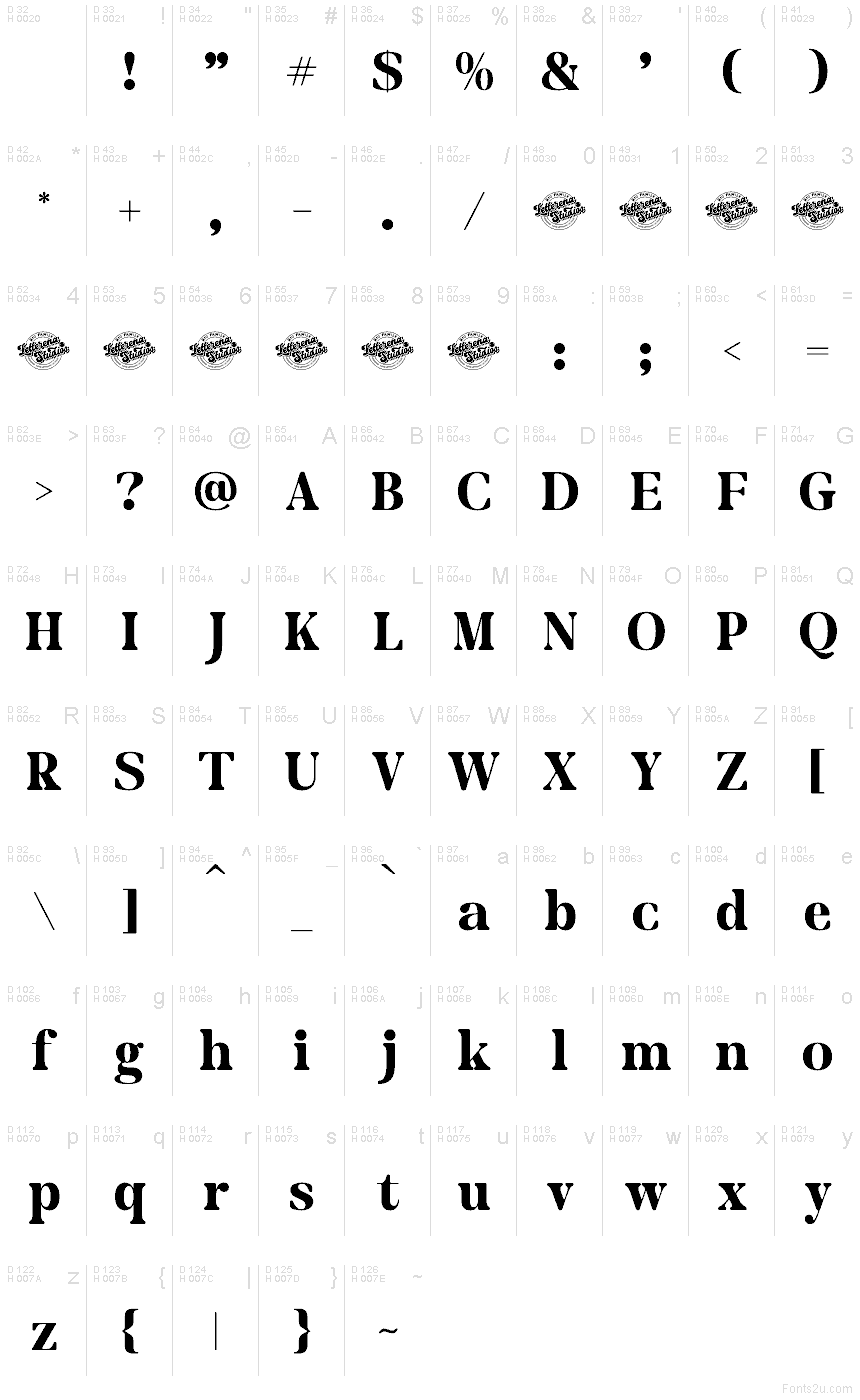
Merifto DEMO VERSION
Merifto font by Storytype Studio is a classic free serif font that embodies elegance with its strong presence and freeform style. Its bold weight exudes authority and professionalism, giving it a visually pleasing look that instantly gets recognized.
Use it to design logos, branding, book covers, magazines, social media posts, album covers, Instagram ads, web pages headings and sub-headings…